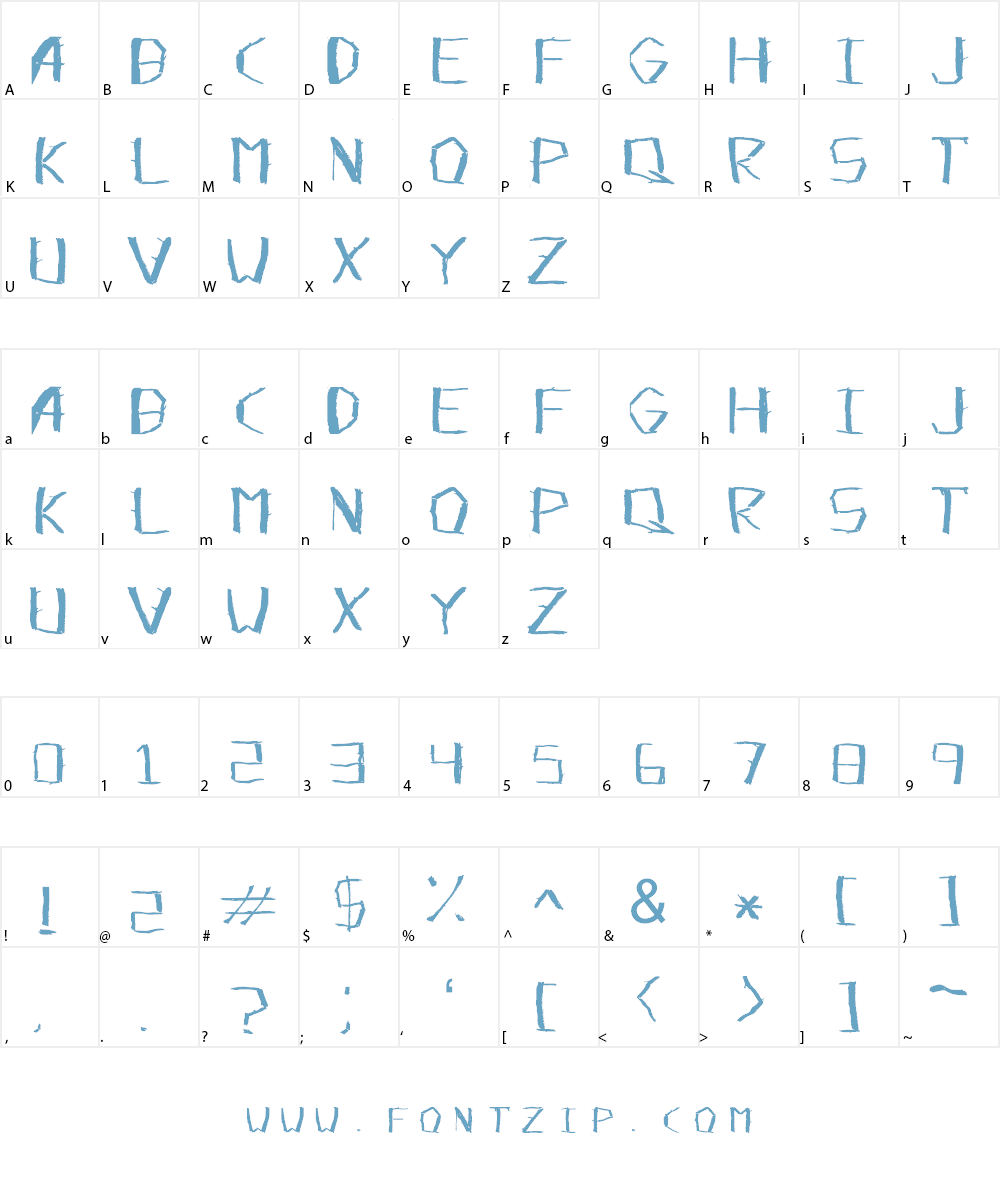
This font was created from actual photographs of pine branches.
The sticks were carefully arranged into letters and numbers, photographed,
converted to vectors, and compiled into a font.